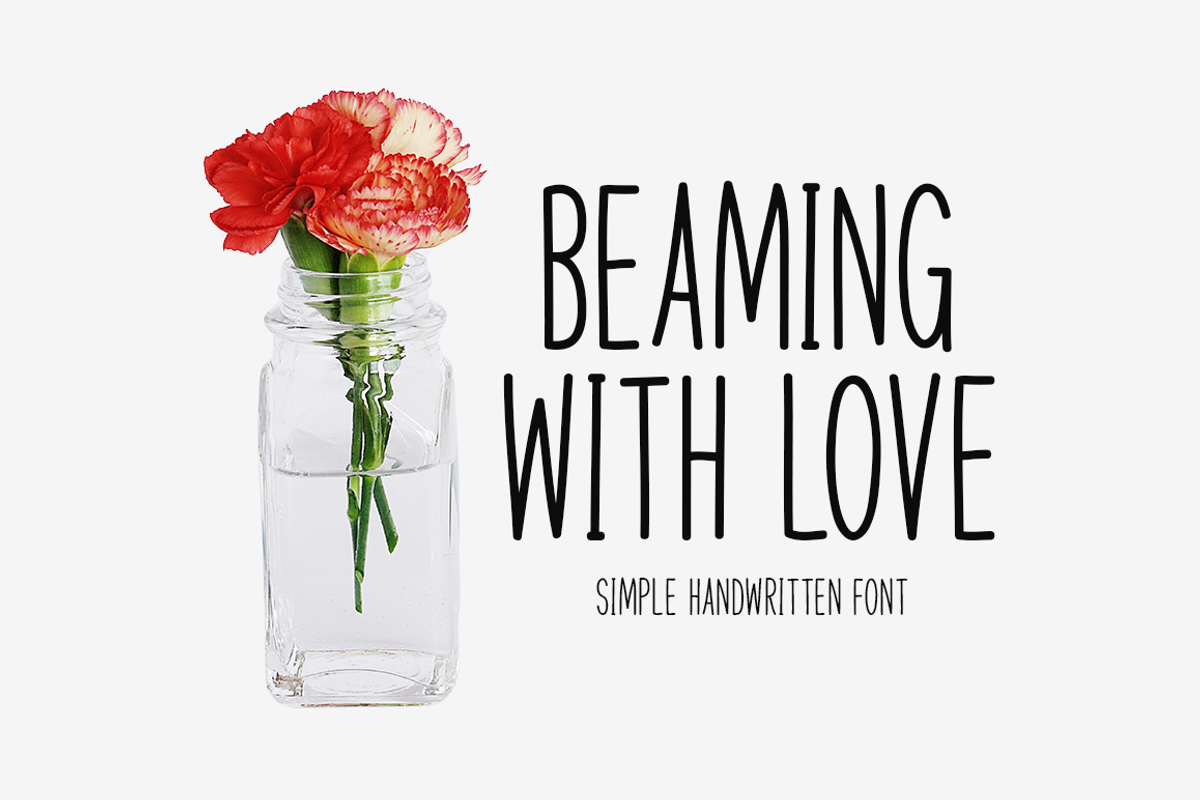
Beaming With Love Typeface is a charming and playful font that adds a joyful, heartfelt touch to any design. Ideal for invitations, greeting cards, and personal projects, this font brings a warm and friendly vibe to your creations. Download Beaming With Love Typeface Free Download today and infuse your designs with love and positivity!